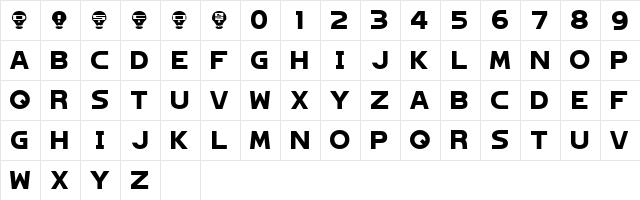
Hagane Regular
Design Context for Hagane Typeface
Hagane takes a measured approach to typography — its balanced proportions and neutral character make it a reliable workhorse for both digital and print work.